Top 10 Script Font Trends to Give Your Projects a Personal Touch
Find the perfect Script Font for your brand with our curated list. These 10 handpicked styles will add a professional, authentic, and handwritten touch to your designs instantly.
1. Santa Catalina Script Font
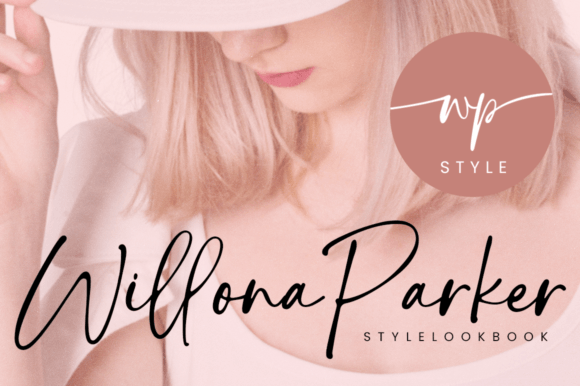
If you are looking for that perfect balance between elegance and character, the Santa Catalina Script Font is a true gem I’ve recently added to my toolkit. It’s one of those script fonts that feels instantly timeless, making it my go-to recommendation for high-end wedding stationery, delicate photography watermarks, or even a chic logo for a modern brand. There is a distinct, rhythmic flow to the strokes that brings a sophisticated, handmade feel to any digital canvas.
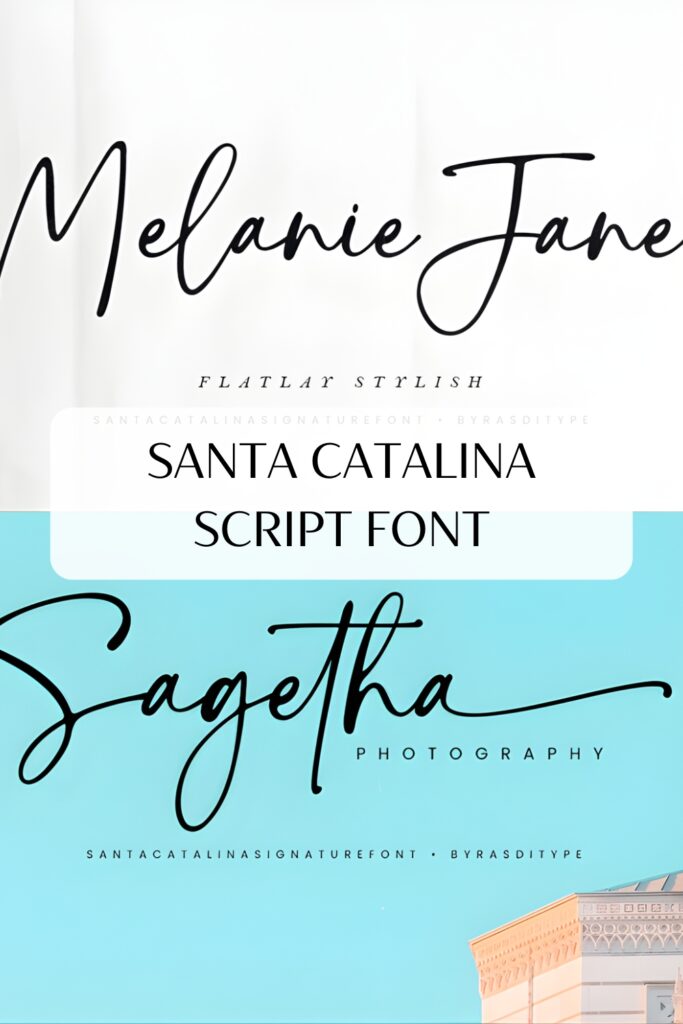
What really wins me over as a designer, though, is the functionality. This font is PUA encoded, which is a total lifesaver—it means you can access all those gorgeous extra glyphs and decorative swashes effortlessly, without needing any complex professional software. It’s incredibly versatile and ready to turn a standard layout into something truly spectacular.
2. Daily Calm Script Font
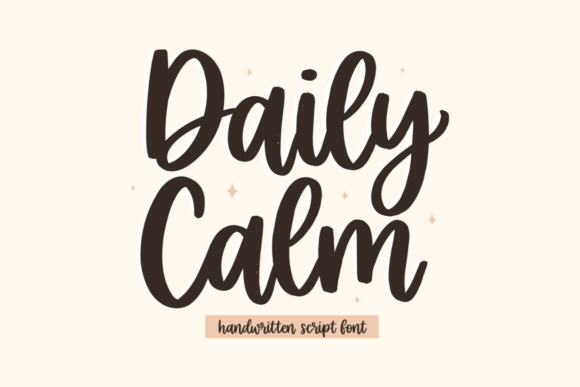
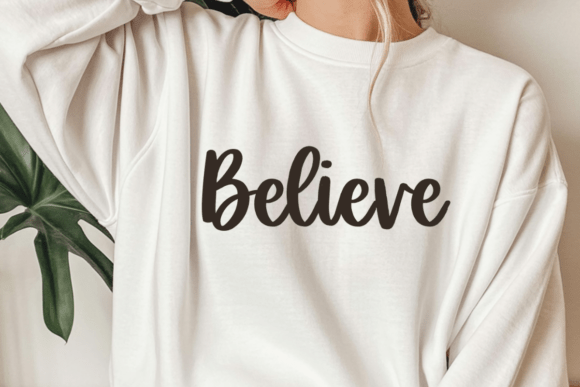
There are days when a design just needs to breathe, and that’s exactly why I’m obsessed with the Daily Calm Script Font. Unlike more formal script fonts, this one brings a beautifully flowing, relaxed energy to the page that feels genuinely sincere. It’s got these thick, brush-like strokes and smooth connections that give it a high-impact, contemporary look without losing that cozy, “handmade with love” aesthetic we all strive for in lifestyle branding.
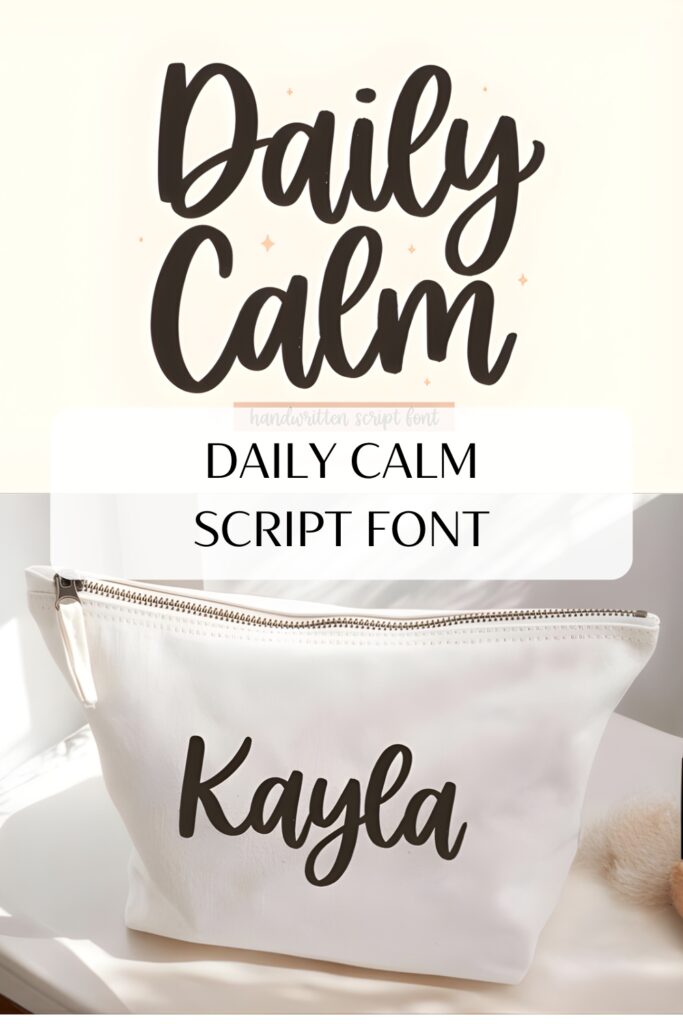
I personally find it perfect for projects that need to feel approachable yet confident—think artisanal packaging, friendly cafe logos, or those inspirational social media quotes that actually stop a scroll. Because it’s a bolder weight, it keeps its legibility even at a glance, making it a versatile staple in my collection. If your project needs to radiate a happy, authentic vibe, this typeface is an absolute must-have asset.
3. Aurantiaca Signature Script Font
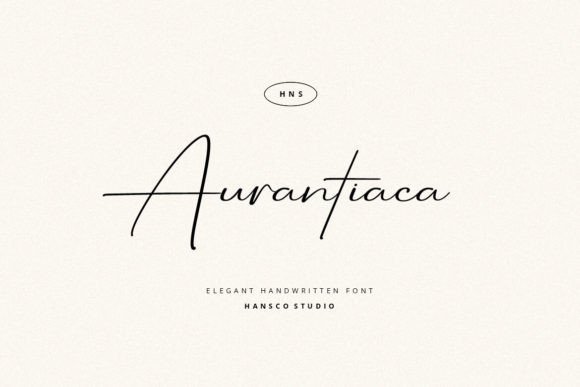
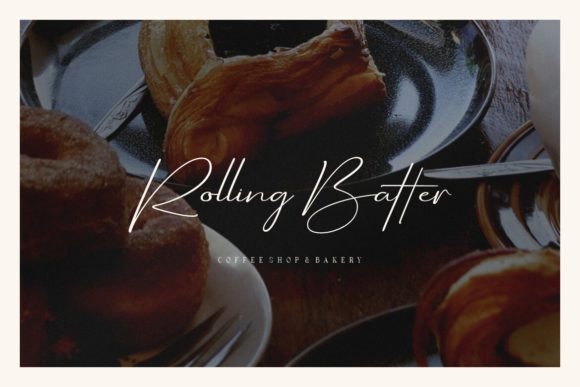
When a project calls for a touch of modern femininity and a “just-written” feel, the Aurantiaca Signature Script Font is exactly what I reach for. It has that chic, casual handwriting style that feels incredibly personal, making it a fantastic choice for everything from sophisticated business cards to dreamy wedding invitations. While some script fonts can feel a bit too rigid, Aurantiaca flows with a natural ease that adds an authentic, human element to digital layouts.
What makes this typeface a permanent resident in my design library is its sheer utility. It’s a full-package deal—complete with uppercase, lowercase, numbers, and those crucial ligatures that make the handwriting look real. Plus, the extensive language support is a huge win for my international projects. Whether I’m designing a minimalist cafe menu or a bold fashion flyer, this font brings a level of versatility that is hard to beat.
4. Montana Script Font
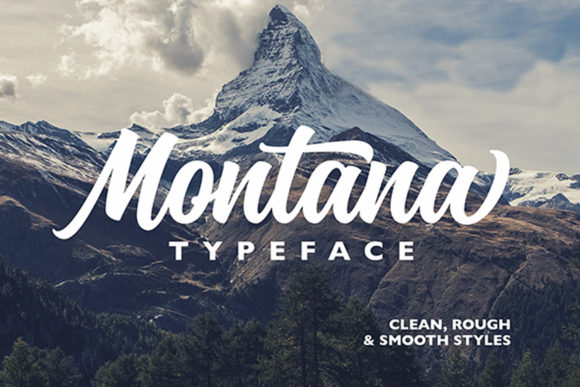
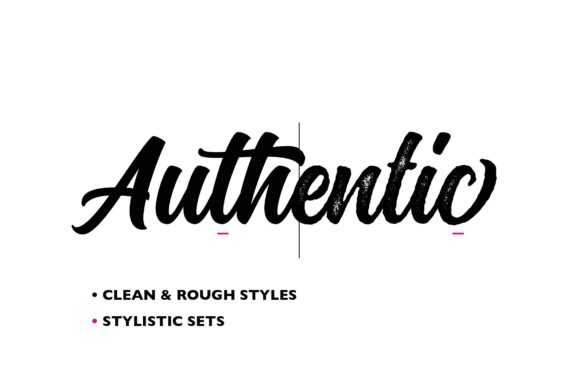
If you’re looking to add a bit of muscle to your typography without losing that hand-crafted charm, the Montana Script Font is a total standout. Most script fonts tend to lean toward the delicate side, but Montana breaks the mold with its thick, confident strokes and bold cursive flow. It has this wonderful nostalgic character that feels both strong and dynamic—perfect for when you want a headline or a logotype to truly command attention rather than just sit quietly on the page.
From a technical perspective, I really appreciate that it’s PUA encoded. It’s such a relief to know I can grab all those extra glyphs and stylish swashes effortlessly to customize a look. Whether I’m working on a vintage-inspired brand identity or a high-impact poster, Montana adds a layer of sophisticated grit that’s hard to find. It’s definitely one of those “secret weapon” fonts for when you need your design to feel both timeless and powerful.
5. Bridgerton Script Font
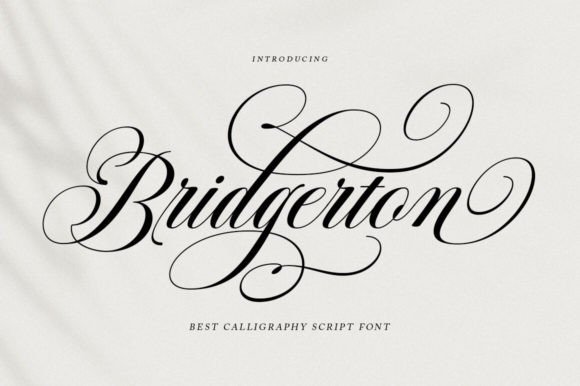
For those moments when a project demands nothing less than absolute luxury, the Bridgerton Script Font is my premier choice. It’s a stunning copperplate-inspired calligraphy face that strikes that elusive balance between classic decorative flair and a clean, modern finish. Unlike some more traditional script fonts that can feel stiff, Bridgerton is incredibly fluid, sensual, and—most importantly—exceptionally easy to read. Those glamorous letter connections create a visual rhythm that feels high-end, making it a dream for wedding stationery, sophisticated makeup branding, or editorial layouts for magazines.
What I love most about sharing this font with you is how accessible it is. Even though it looks like it requires a professional calligrapher, it’s Unicode PUA encoded. This means you can unlock all those exquisite extra characters and swashes using just your standard Font Book on Mac or Character Map on Windows. You don’t need fancy software to make your designs look like they cost a fortune; Bridgerton does the heavy lifting for you, bringing a timeless, feminine grace to any formal invitation or premium packaging project.
Final Thoughts
Choosing the right Script Font is the easiest way to give your design a soulful, human feel. Whether you need elegance or rustic charm, these ten options offer the perfect blend of style and legibility to make your creative projects truly stand out.